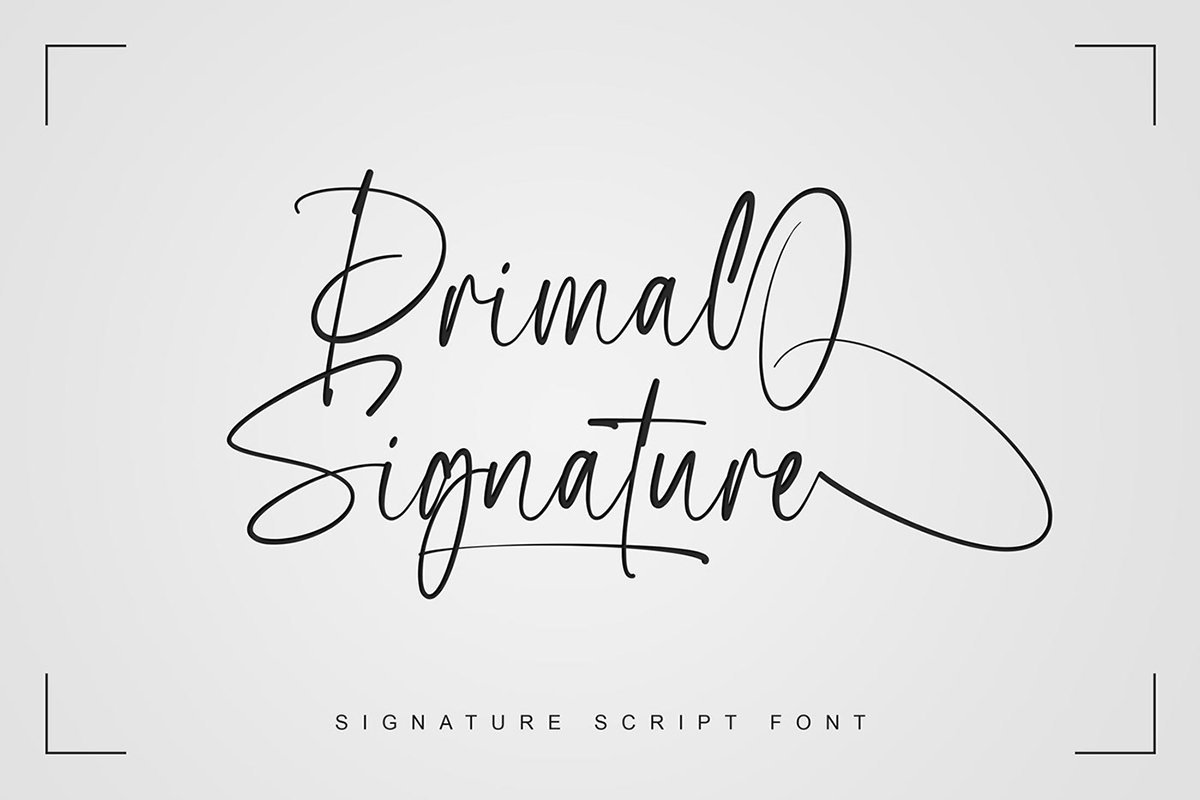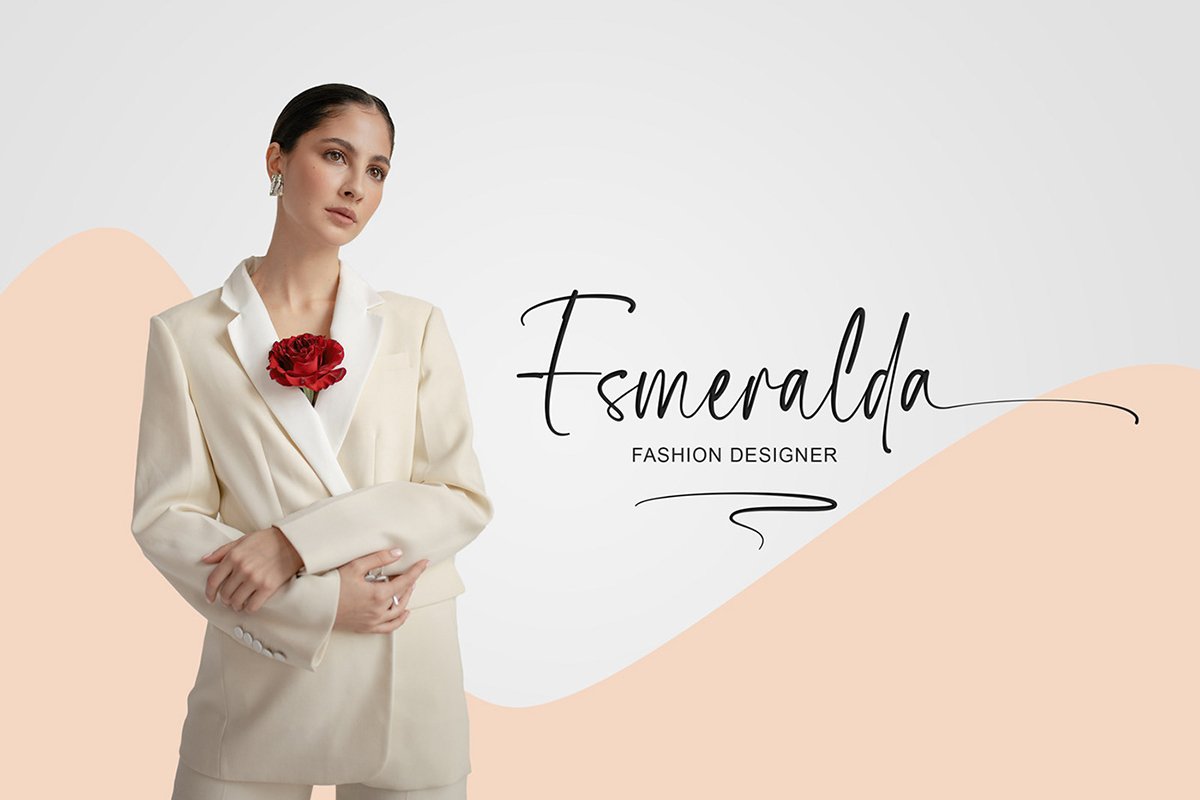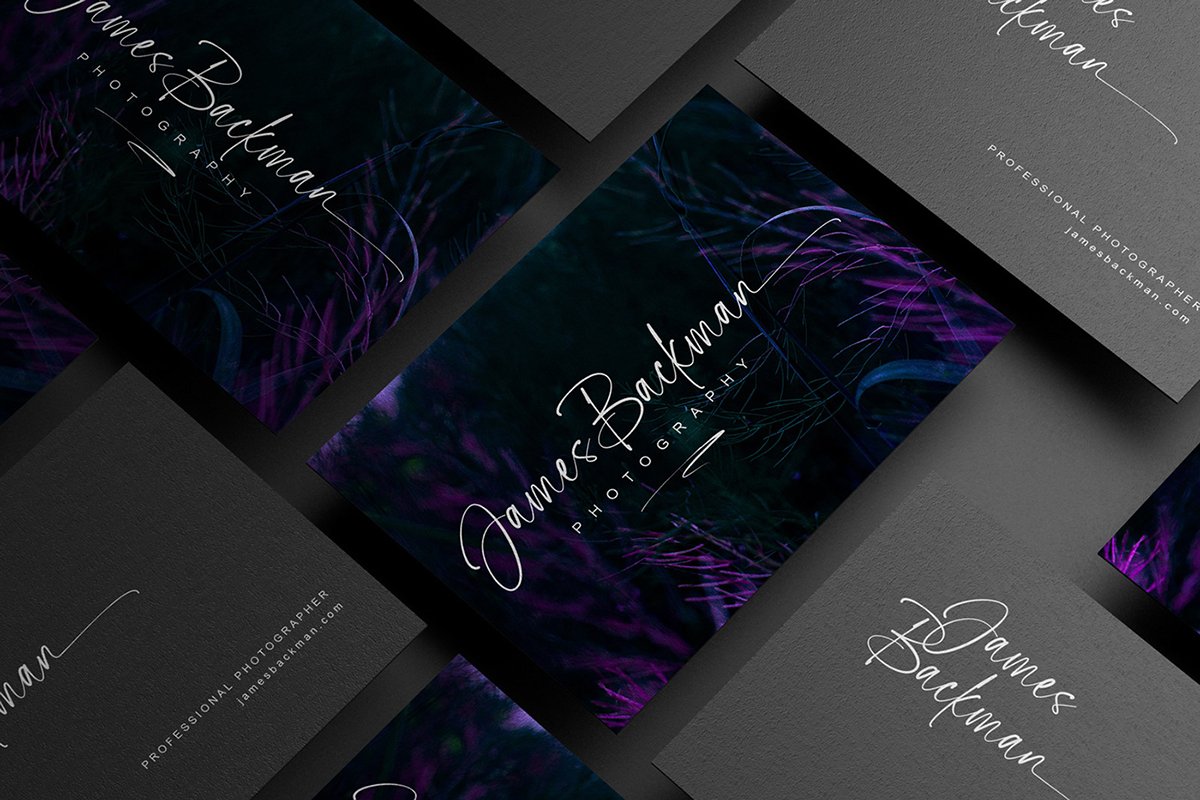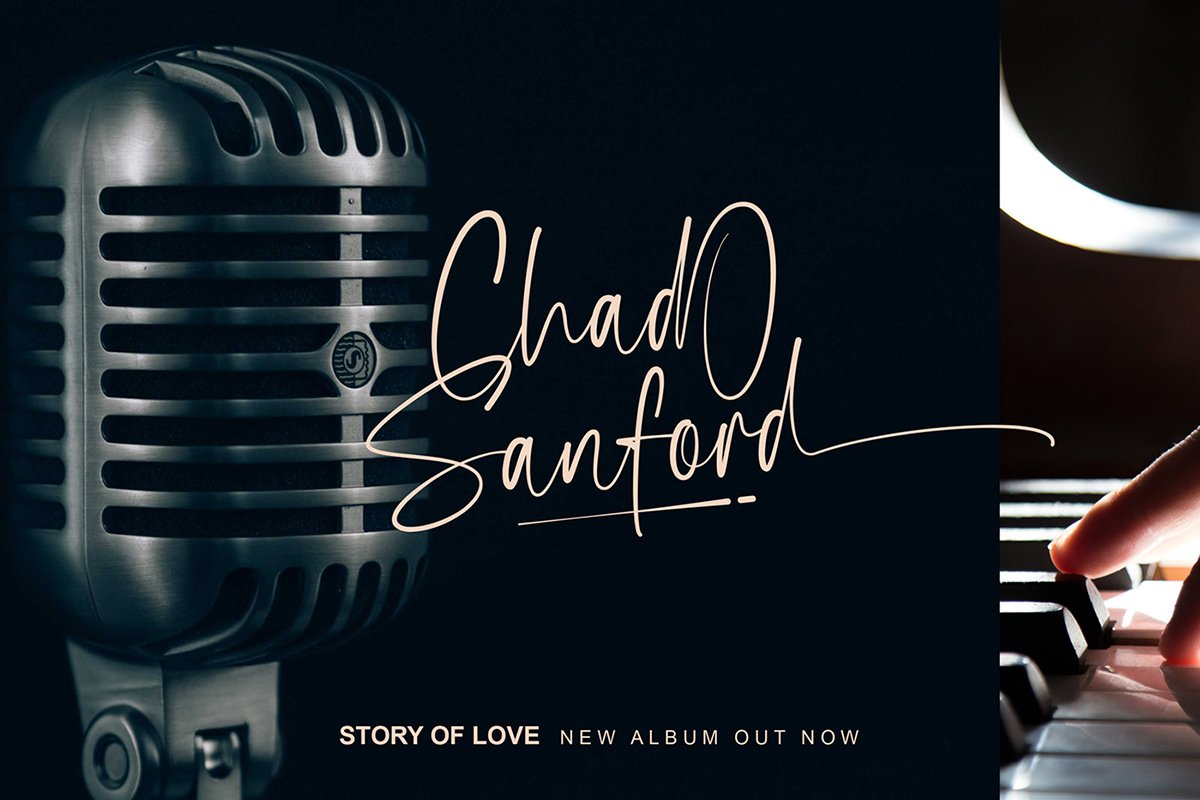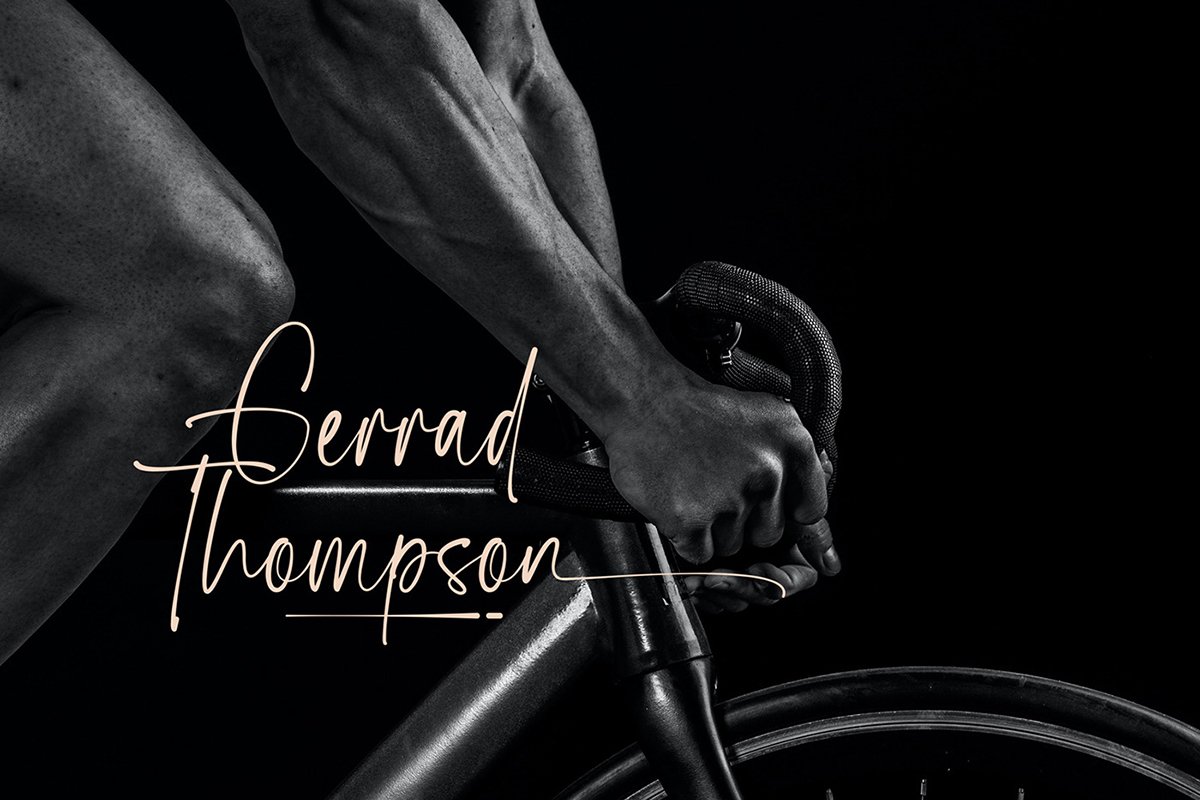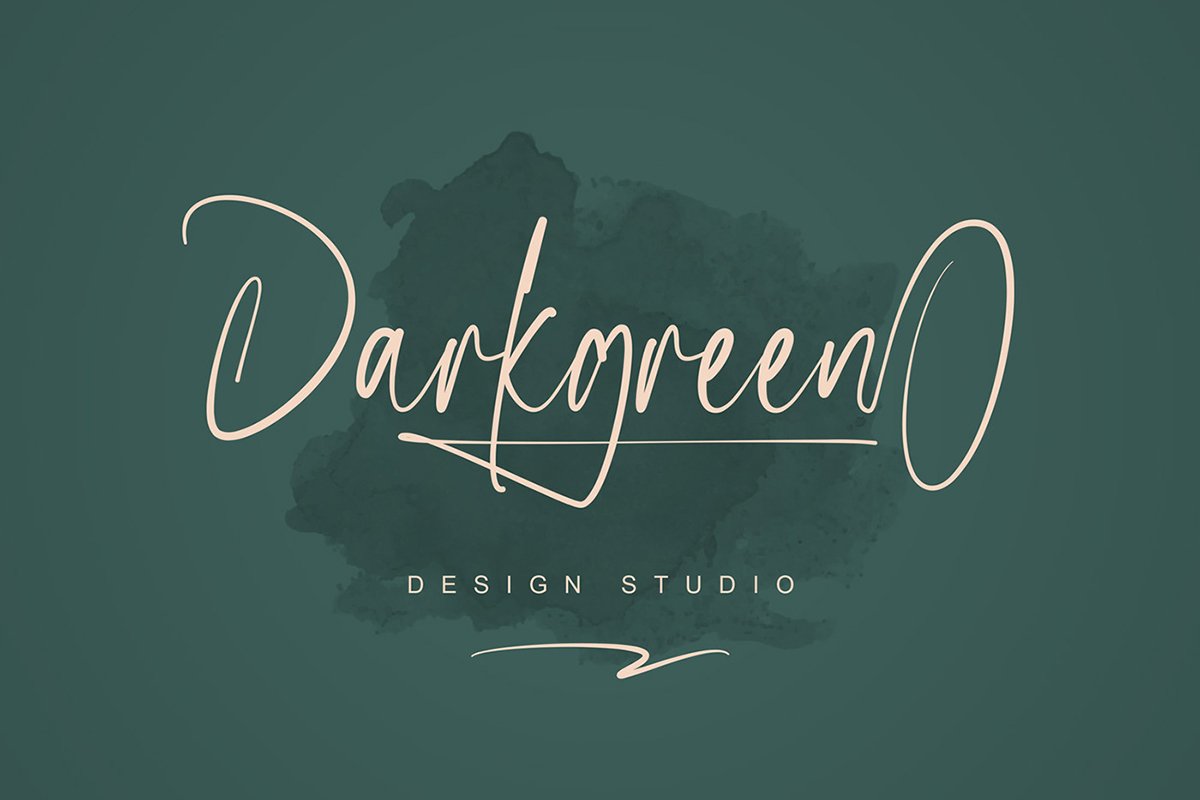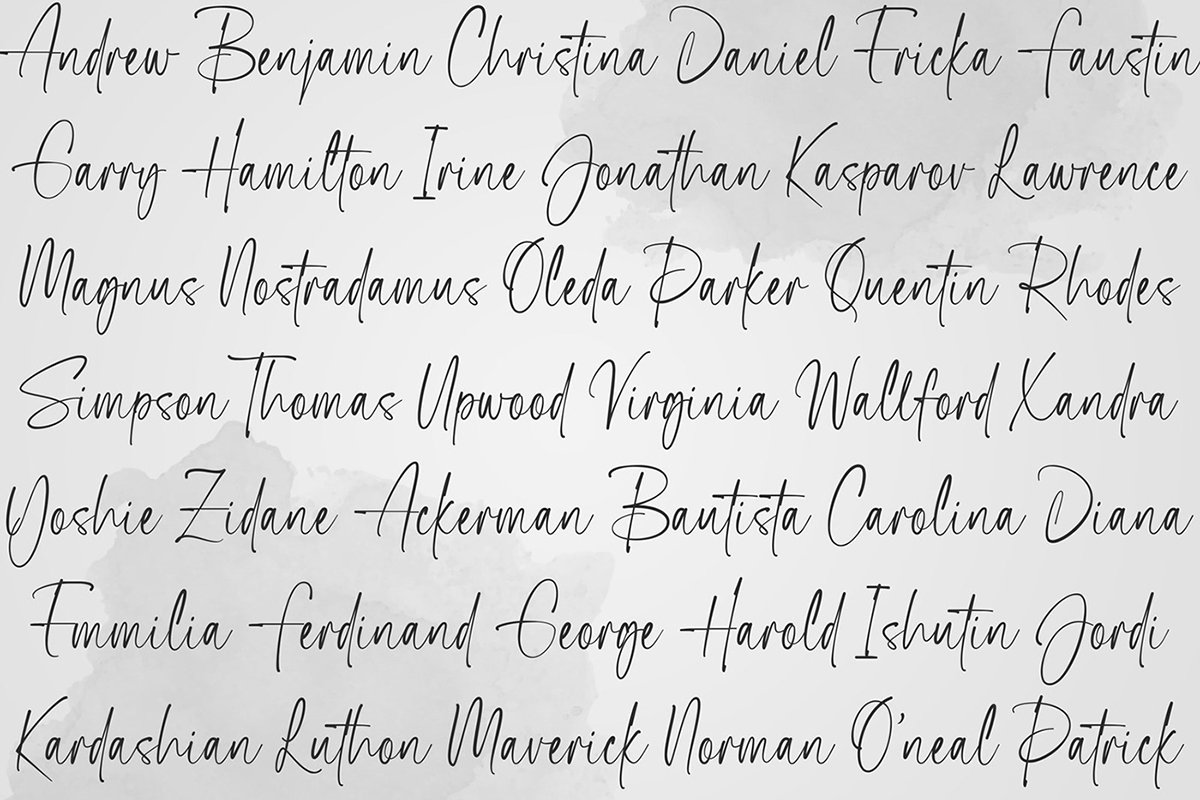
Free Primal Signature Font is a perfect signature font, with a natural & stylish flow. the font is perfect for many different design project. It works best on logos & branding, invitation, stationery, wedding designs, social media posts, advertisements, and many more.